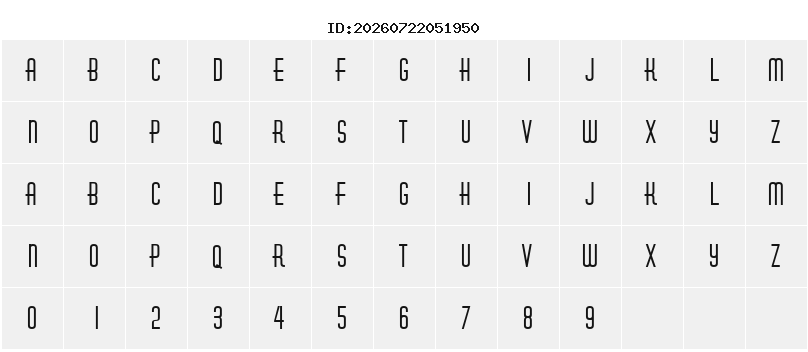
About Hustle Wide.ttf
Hustle Wide.ttf is a modern, elegant sans-serif font designed for ultimate readability and visual harmony. Perfect for branding, headlines, web design, and print materials.